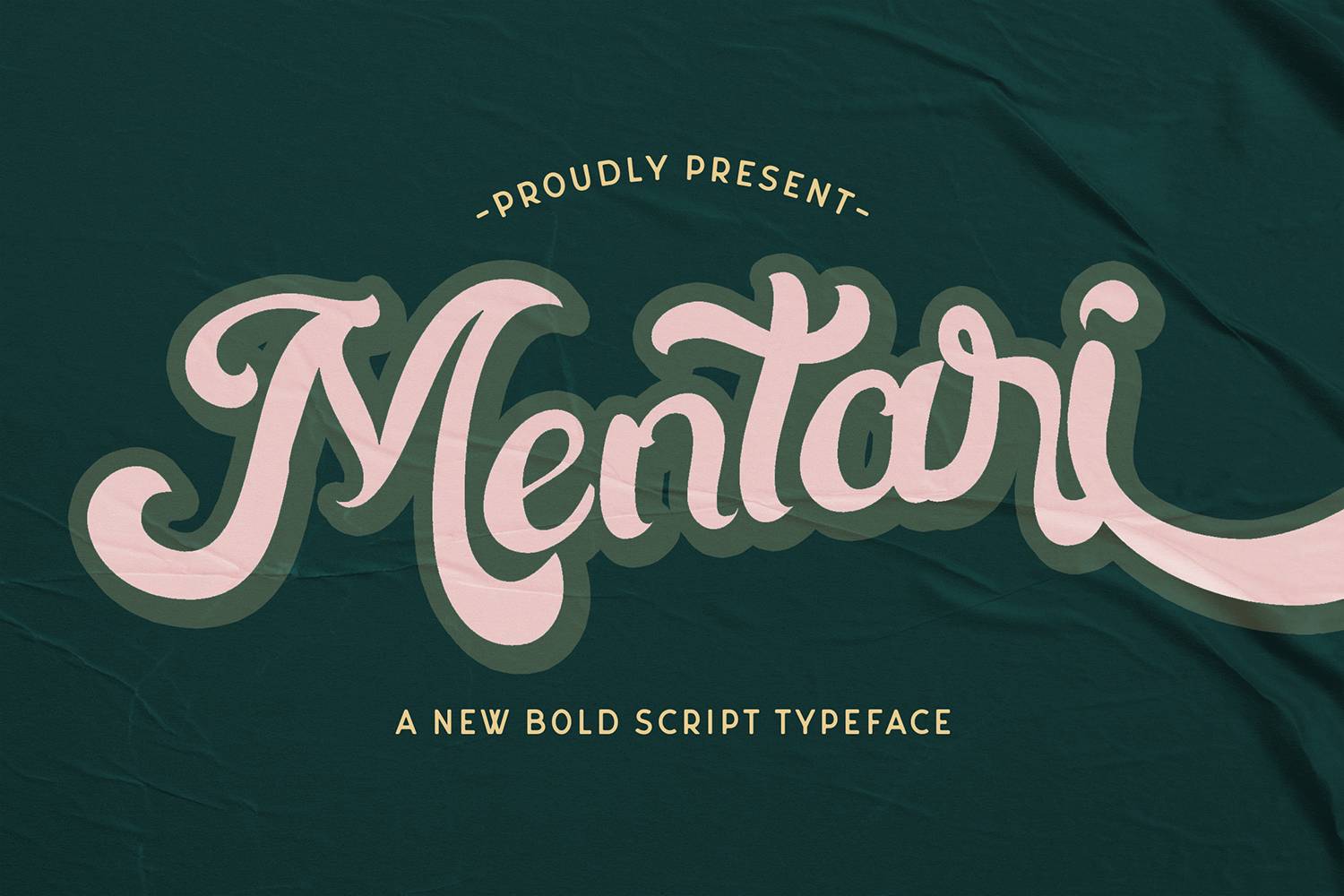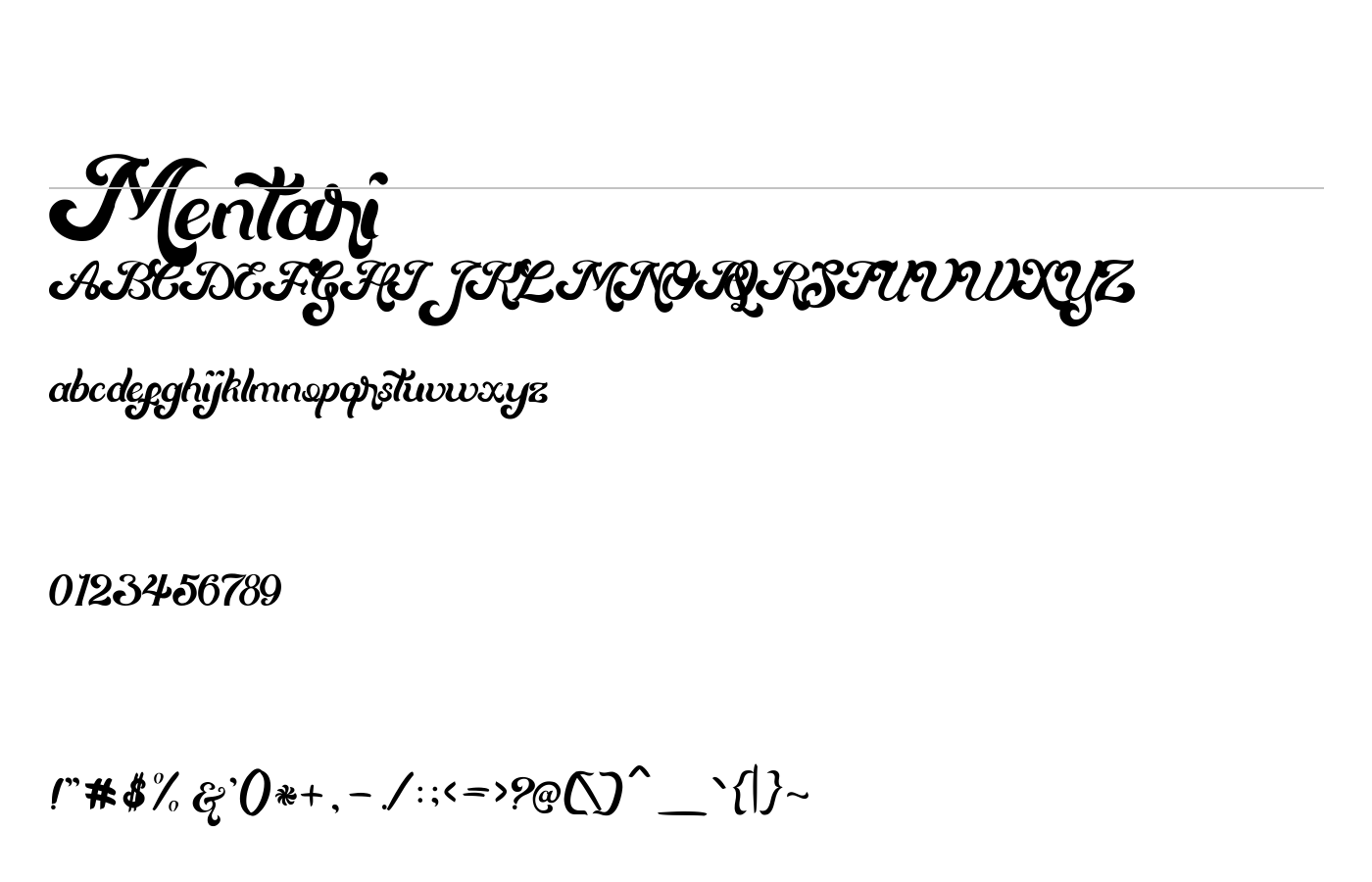
Mentari is an ornate script font with a bold, decorative style that combines thick and thin strokes to create a dramatic, vintage feel. Its lively swashes and flourishes give it a sense of elegance and playfulness, making it ideal for eye-catching headlines, logos, and branding with a luxurious or artistic flair. This font works well in designs that want to convey sophistication and creativity while retaining a striking, memorable presence.
Mentari Font
About Mentari Font